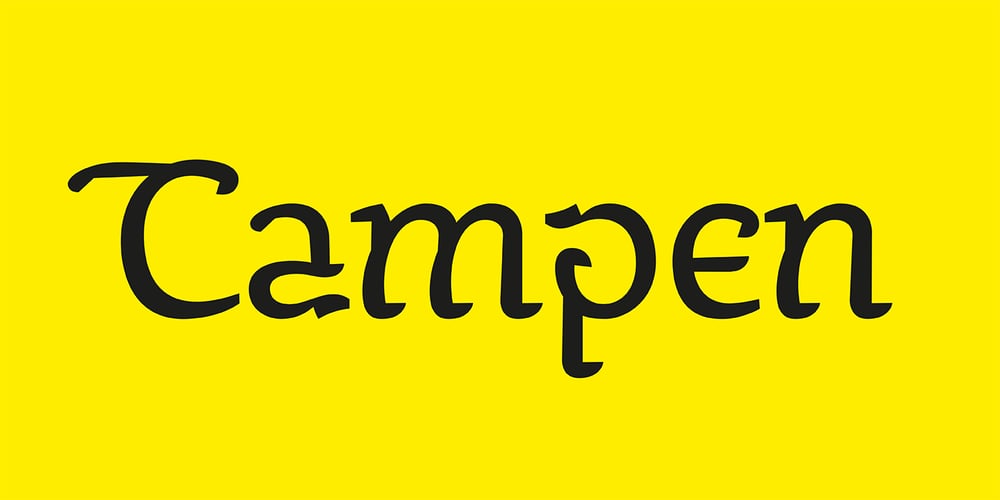
Ps Campen Font Family was designed by Peter Slager and published by Fontopia. Ps Campen contains 1 styles and family package options. psCampen is a contemporary font with a medieval experience. The font can be used as a display variant in addition to the font psKampen. It is also useful for short texts.